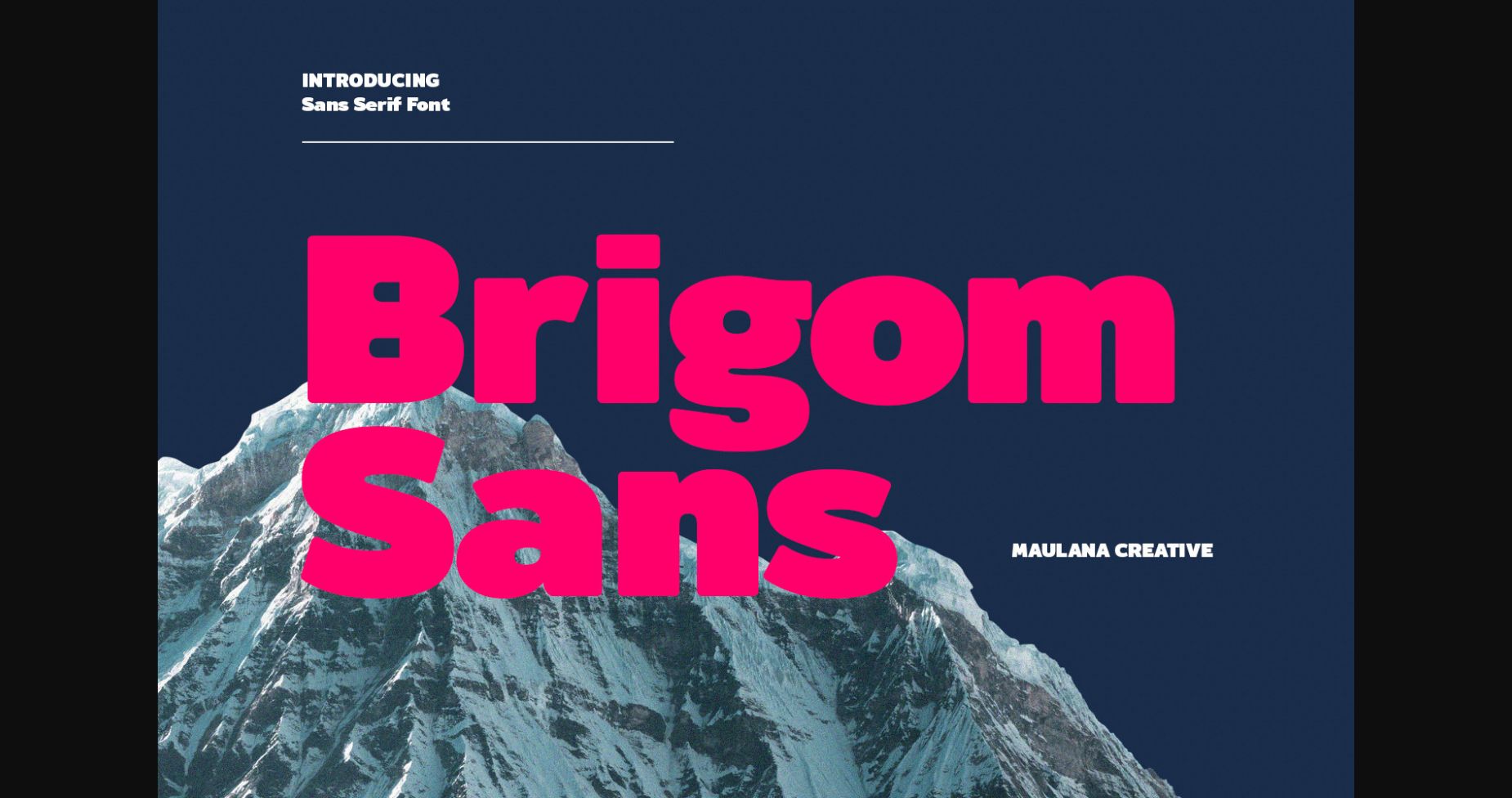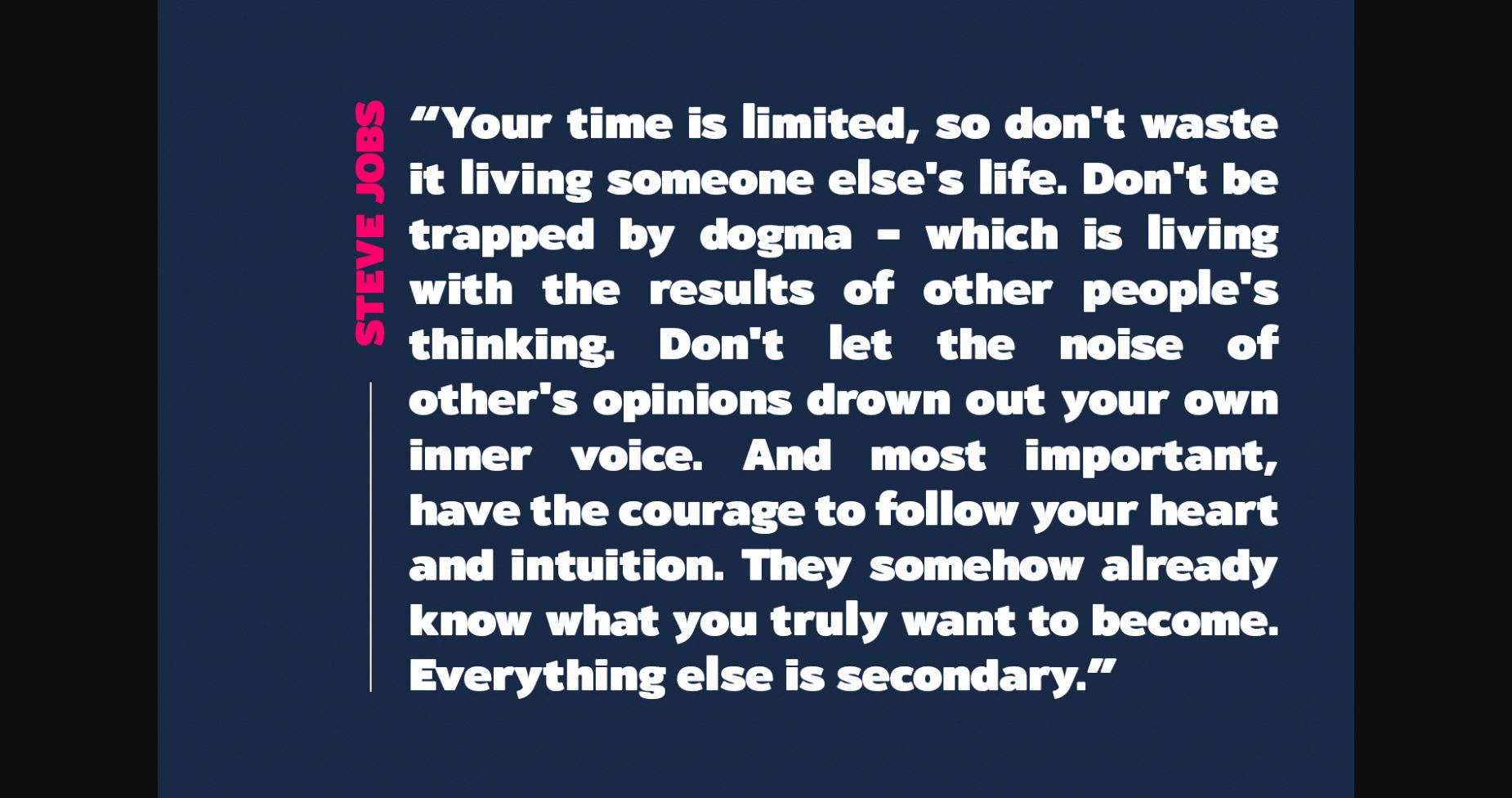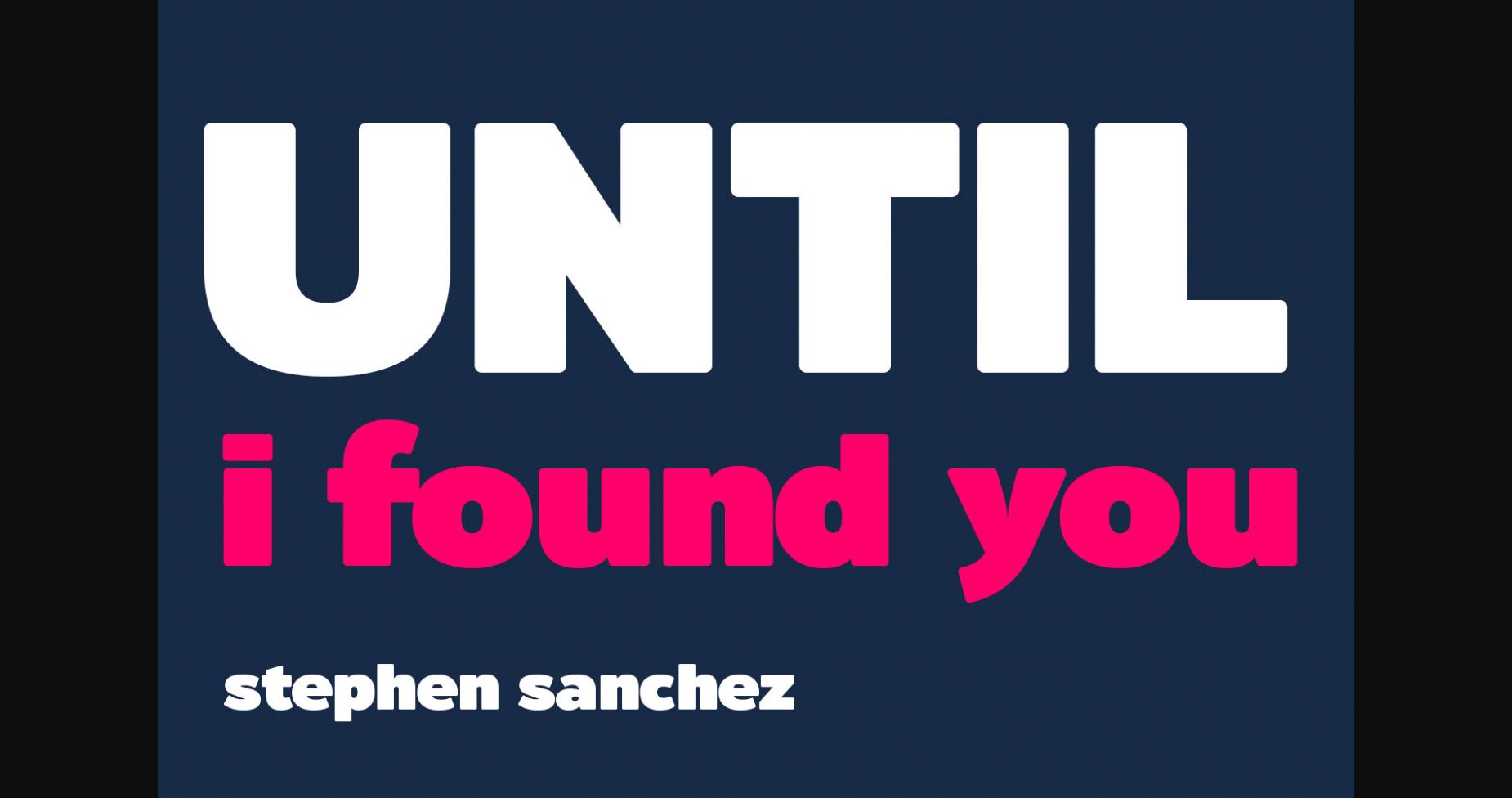
About Brigom Font
Brigom is a modern sans display font. Bold stroke, fun character with a bit of ligatures and alternates. To give you an extra creative work. Brigom font support multilingual more than 100+ language. This font is good for logo design, Social media, Movie Titles, Books Titles, a short text even a long text letter and good for your secondary text font with script or serif. Make a stunning work with Brigom font.